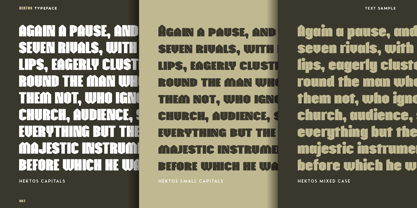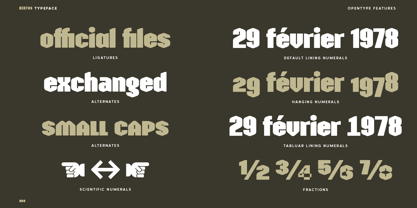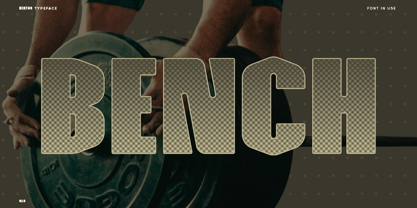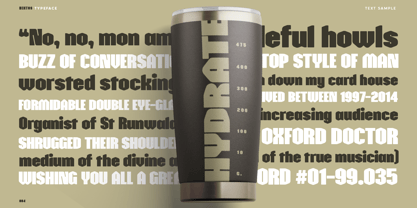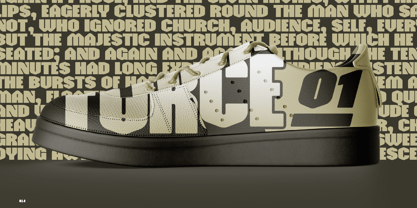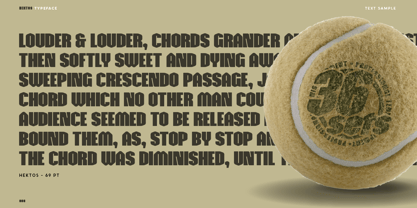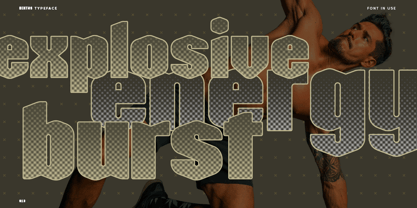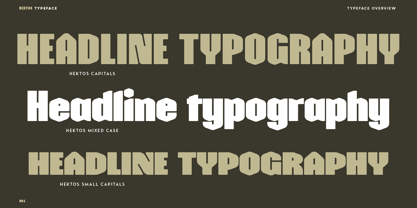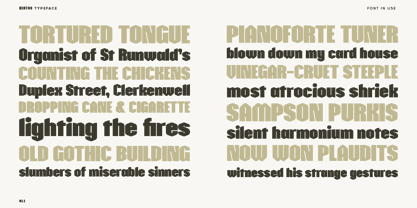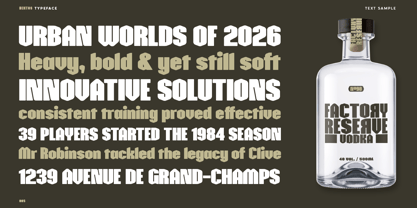
Hektos
Hektos is a single weight, bold display typeface intended for use in headlines and branding. Built with a solid vertical base, the typeface blends linear rigidity with a soft and friendly approach on the terminals and angles to produce a unique voice. Hektos includes an extended Latin character set that covers over 250 different languages and is delivered with a range of Opentype features, such as ligatures, alternates, or various styles of numerals, to offer a complete solution.
Typogama is a digital foundry that features the typeface designs of Michael Parson. Launched in 2002, it has focused on creating unique and original designs that can be used either for display or text settings. Based in Geneva, Switzerland, Typogama aims to provide high quality designs that explore the possibilities of Opentype features while also providing a complete language support. Some of the typefaces equally offer Cyrillic or Greek support.